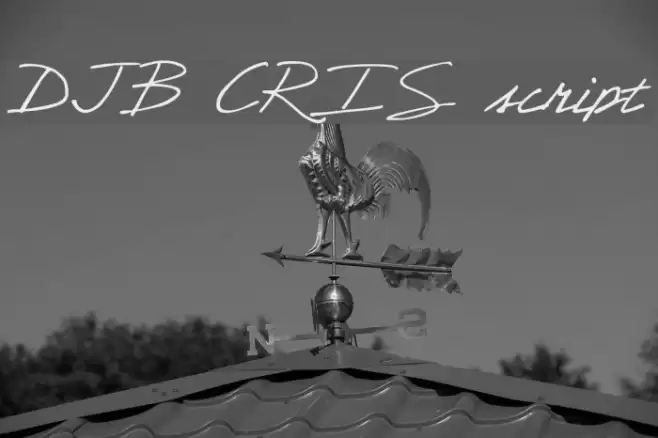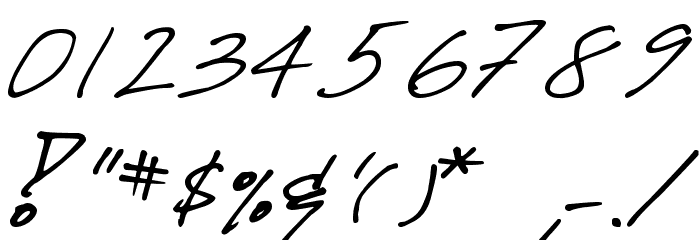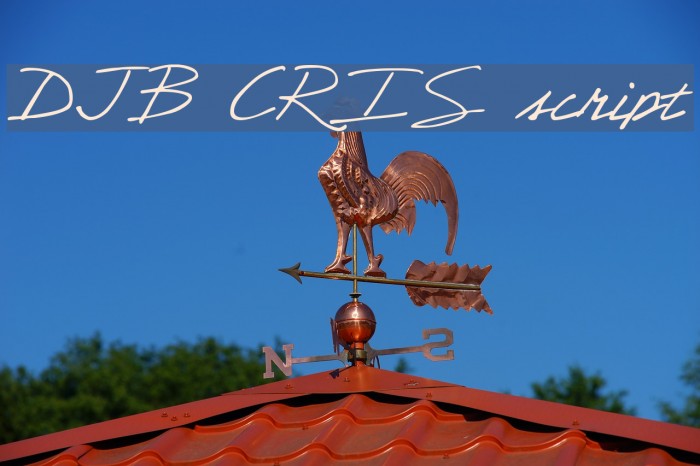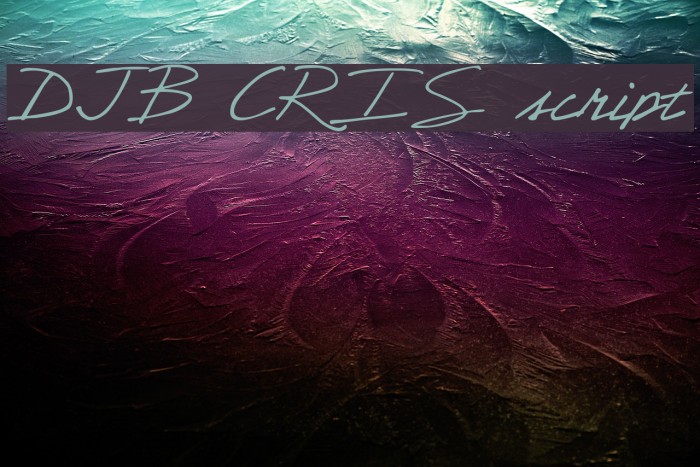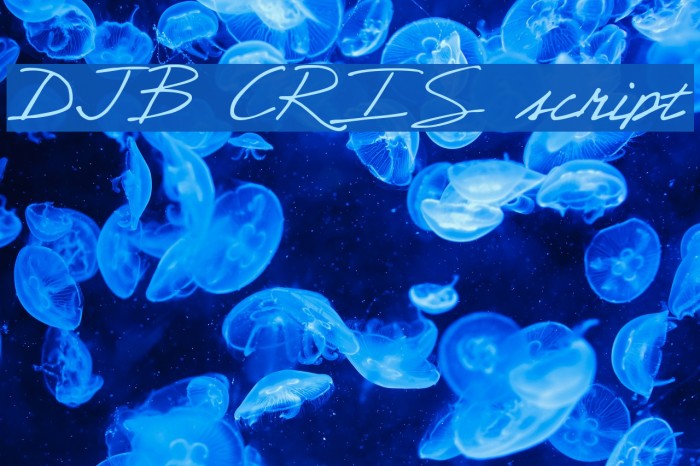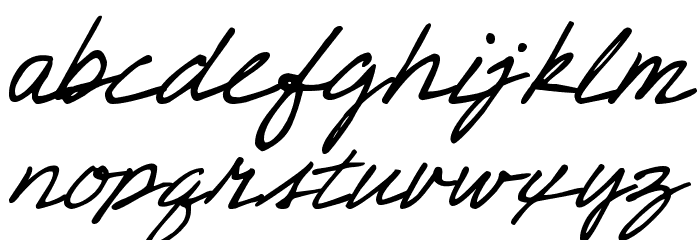
DJB CRIS script Font
DJB CRIS script Description
This script font exudes a casual and fluid handwriting style, characterized by its smooth, flowing lines and slightly slanted characters. The uppercase letters are elegant and elongated, while the lowercase letters maintain a consistent rhythm, creating a harmonious and natural appearance. The numerals and special characters are crafted with the same attention to detail, ensuring a cohesive look across all elements. This font's organic feel makes it ideal for projects that require a personal touch, such as invitations, greeting cards, or branding materials that aim to convey warmth and approachability.
A casual script font with fluid, handwritten strokes and a natural, elegant style from Handwritten fonts.
- Proposed Projects: Ideal for invitations, greeting cards, personal branding, and any project needing a warm, handwritten touch.
- Overall Style: Casual, Elegant
- Use Case: Headlines, Invitations, Greeting Cards